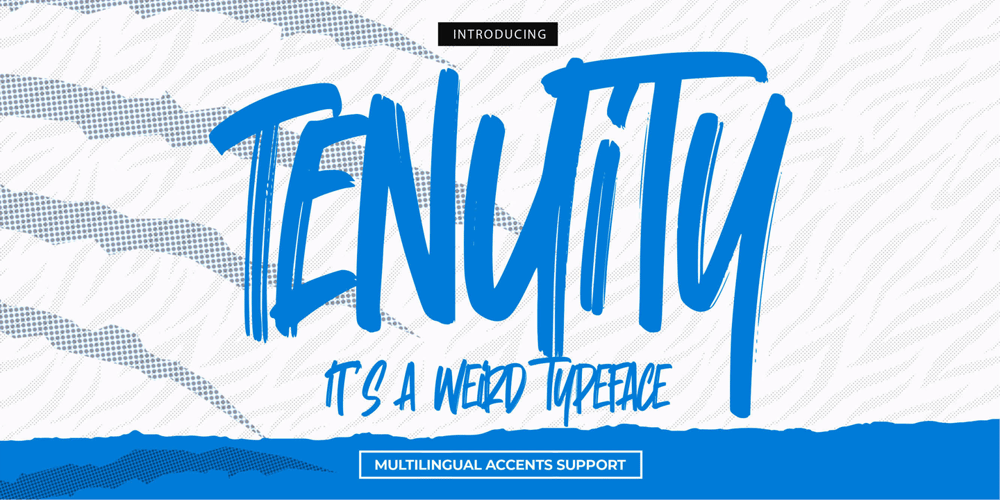
Tenuity Font Family was designed by Abdul Malik Wisnu, Anang Fibriyanto and published by Gassstype. Tenuity contains 1 styles and family package options. Here comes a New font,Introducing Tenuity it is Weird Typeface Font is a Authentic Natural Style and classy style, this font is great for your creative projects such as watermark on photography, and perfect for logos & branding, invitation,advertisements,product designs, stationery, wedding designs,label ,product packaging, special events or anything that need handwritting taste.Tenuity a natural Hand Drawn feel. This handmade font will make your design has a beautiful natural touch for each details. It is perfect for any design project as Invitation,logo, book cover, craft or any design purposes,photos, photography overlays, signs, window art, scrapbooking, tags and so much more!This font is PUA encoded which means you can access all of ligatures and Alternate glypsh.